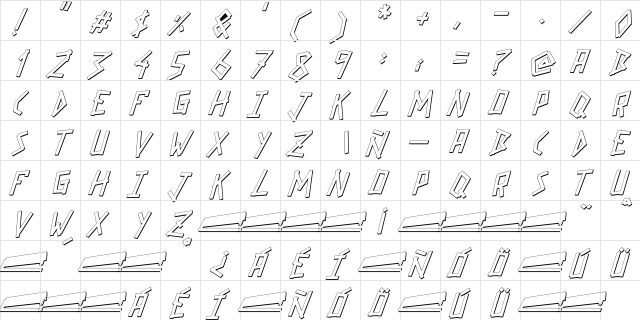
GRAPAFONT comic
Design Context for GRAPAFONT Typeface
GRAPAFONT has an approachable, lighthearted character — its loose, expressive forms are well-suited to children's content, casual branding, and fun-first design.
Dating back to 2007, this typeface is available in OpenType (OTF) format.
Font Pairing: Pairs well with a rounded or humanist sans for body copy, maintaining the friendly tone without relying on GRAPAFONT to carry extended reading.
Pro Tip: Avoid using GRAPAFONT for long passages of text — it works best for headlines, labels, and short calls to action.